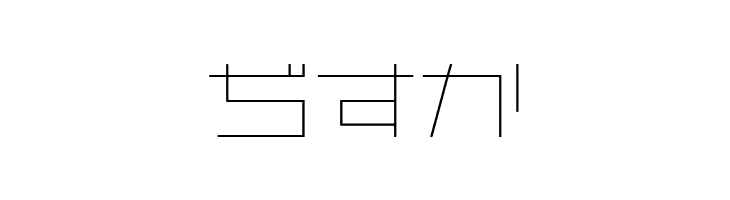
• AstraHfsb07LightO Font
A minimalist, geometric font with thin, linear strokes and wide spacing.
• Roke1984 Font
A bold, geometric font with architectural and mathematical elements.
• AstraHfsb07MediumO Font
A bold, geometric font with a modern and minimalistic design.
• Avessa Font
A bold, playful script font with dynamic and flowing strokes.
• Candara Bold Font
• AstraKfsb07MediumT Font
A bold, geometric font with clean lines and a modern aesthetic.
• Candara Italic Font